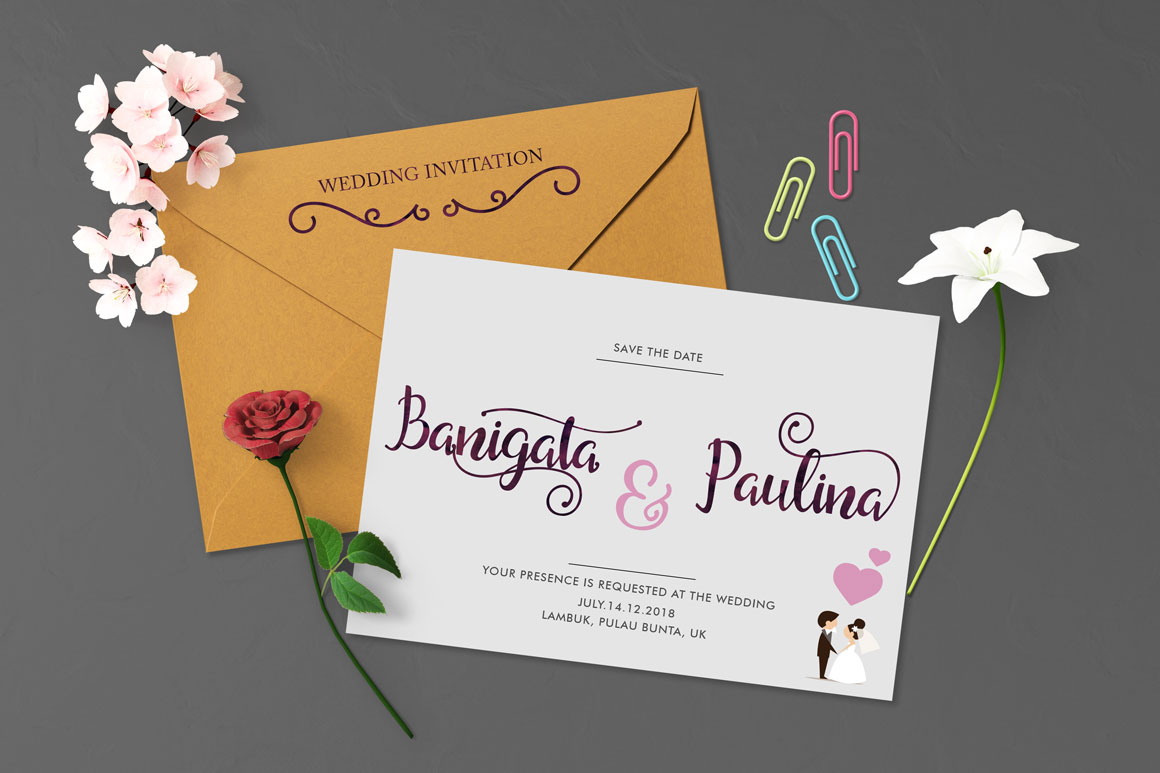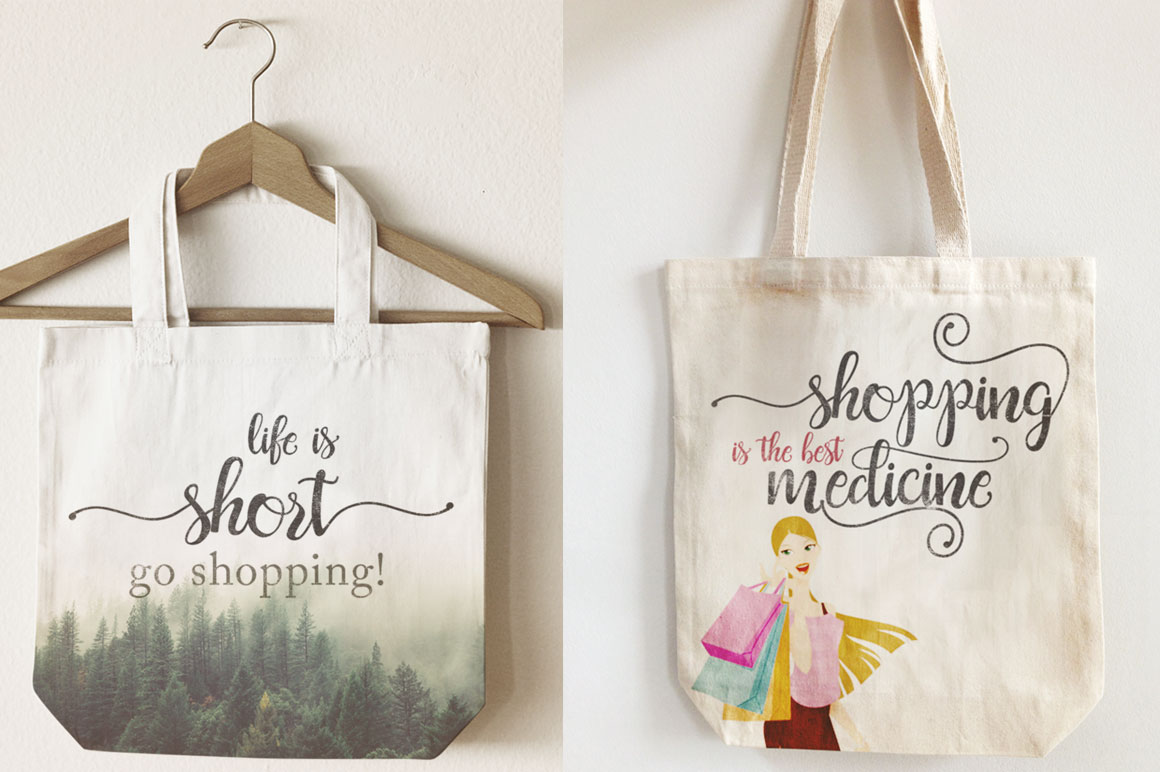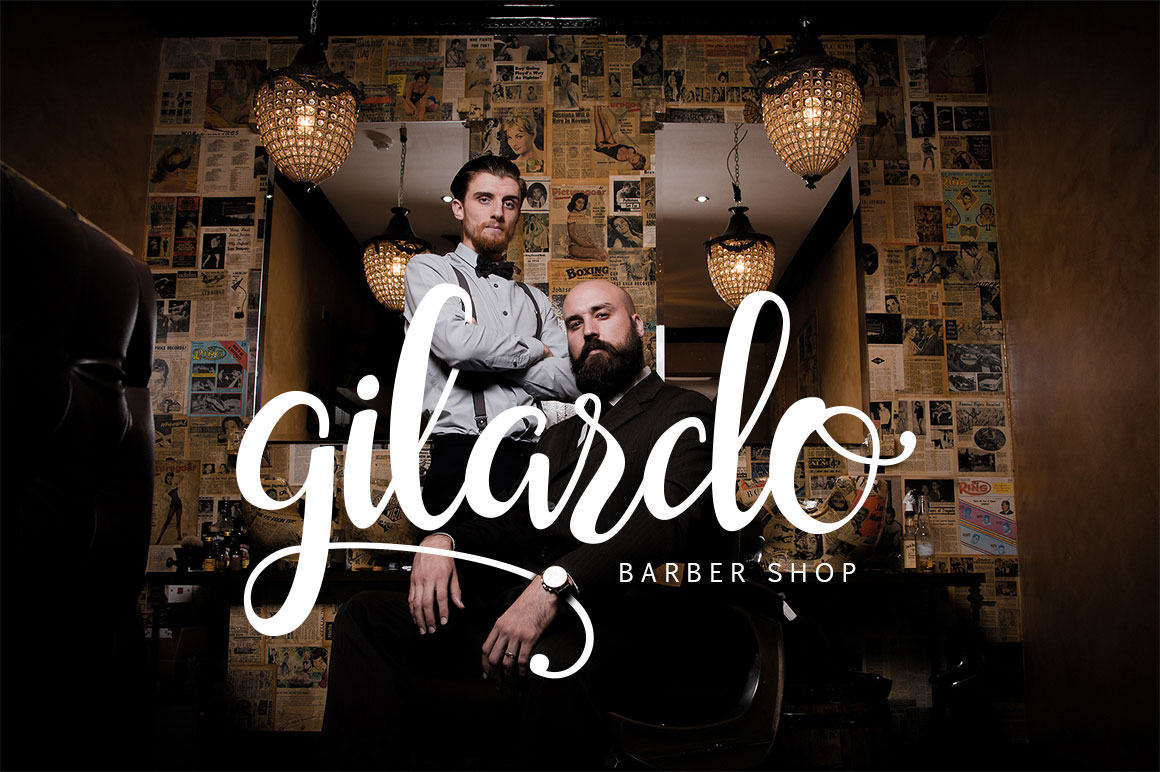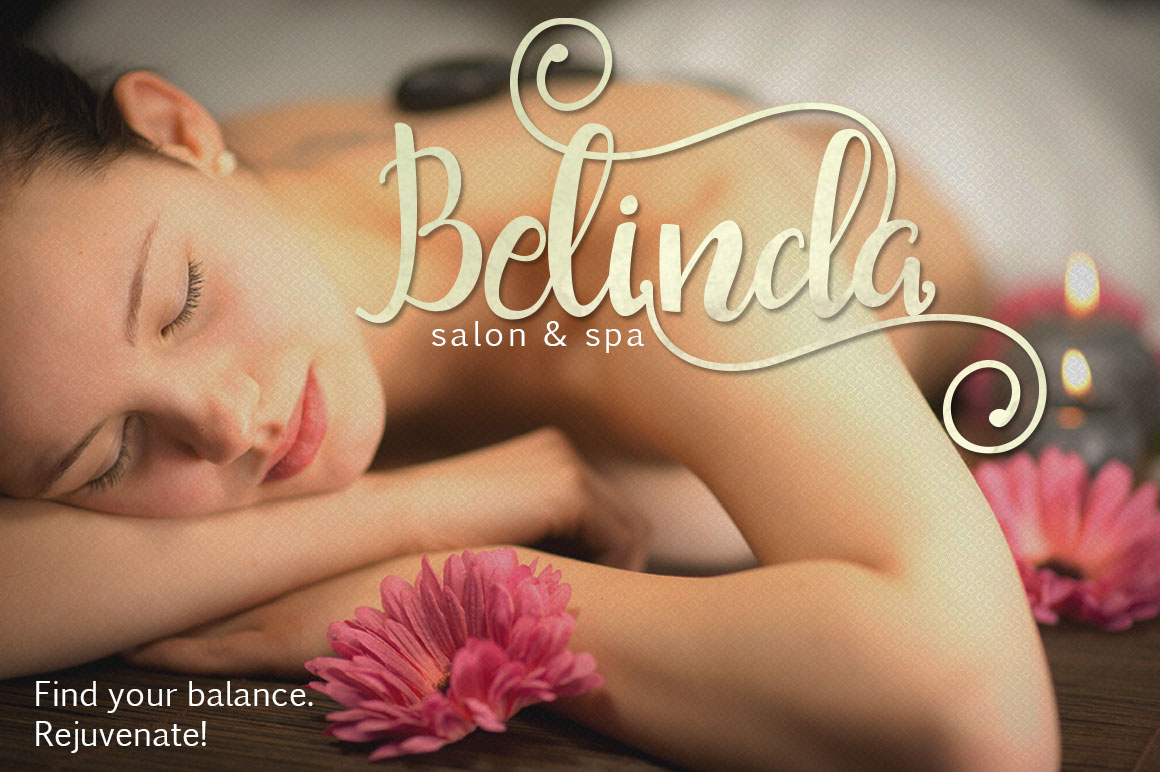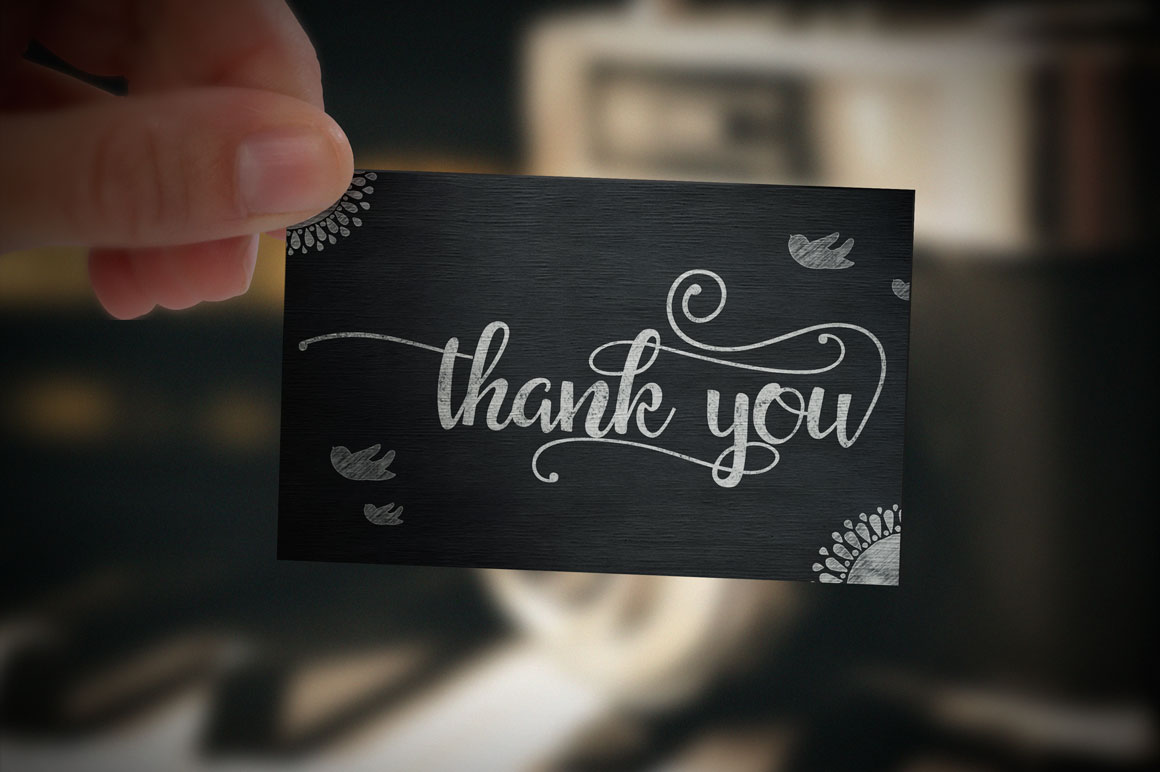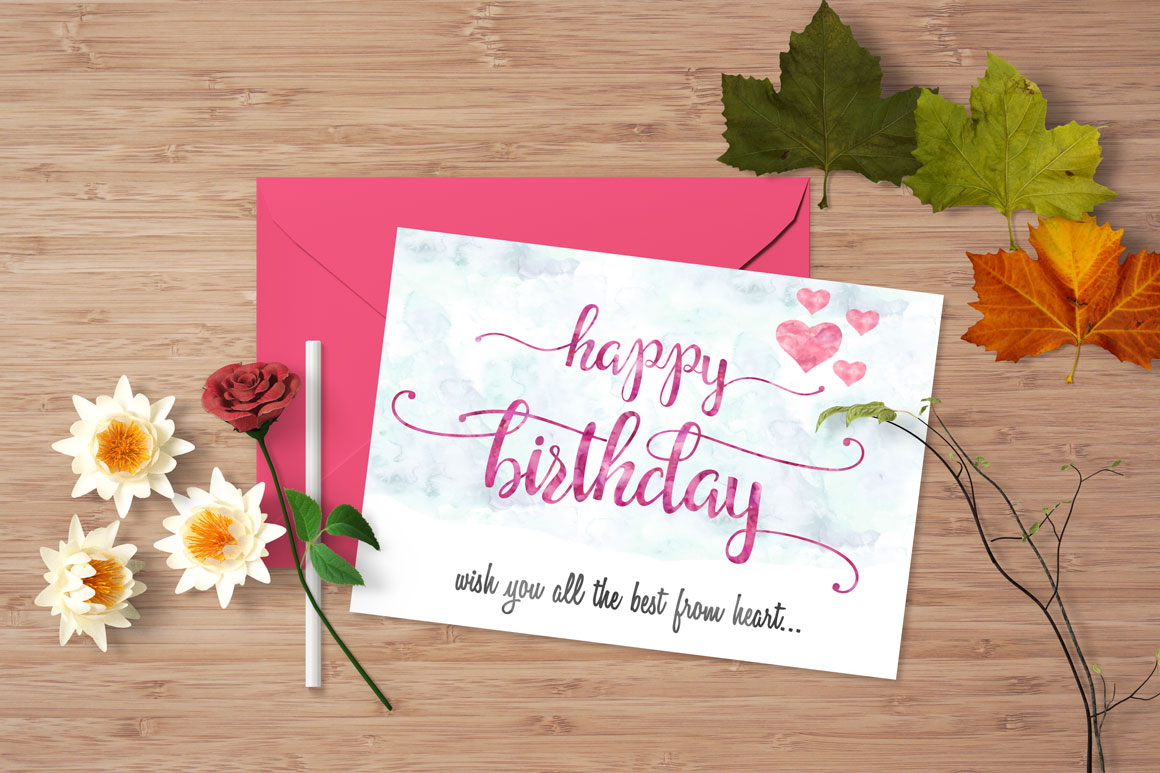
Saldina is a script font that combines brush lettering with traditional handwriting. Saldina is a flexible font, you can easily match it with other typefaces to create beautiful projects such as wedding invitations, vintage designs, greeting cards, posters and many more. Download the free version of Saldina below!